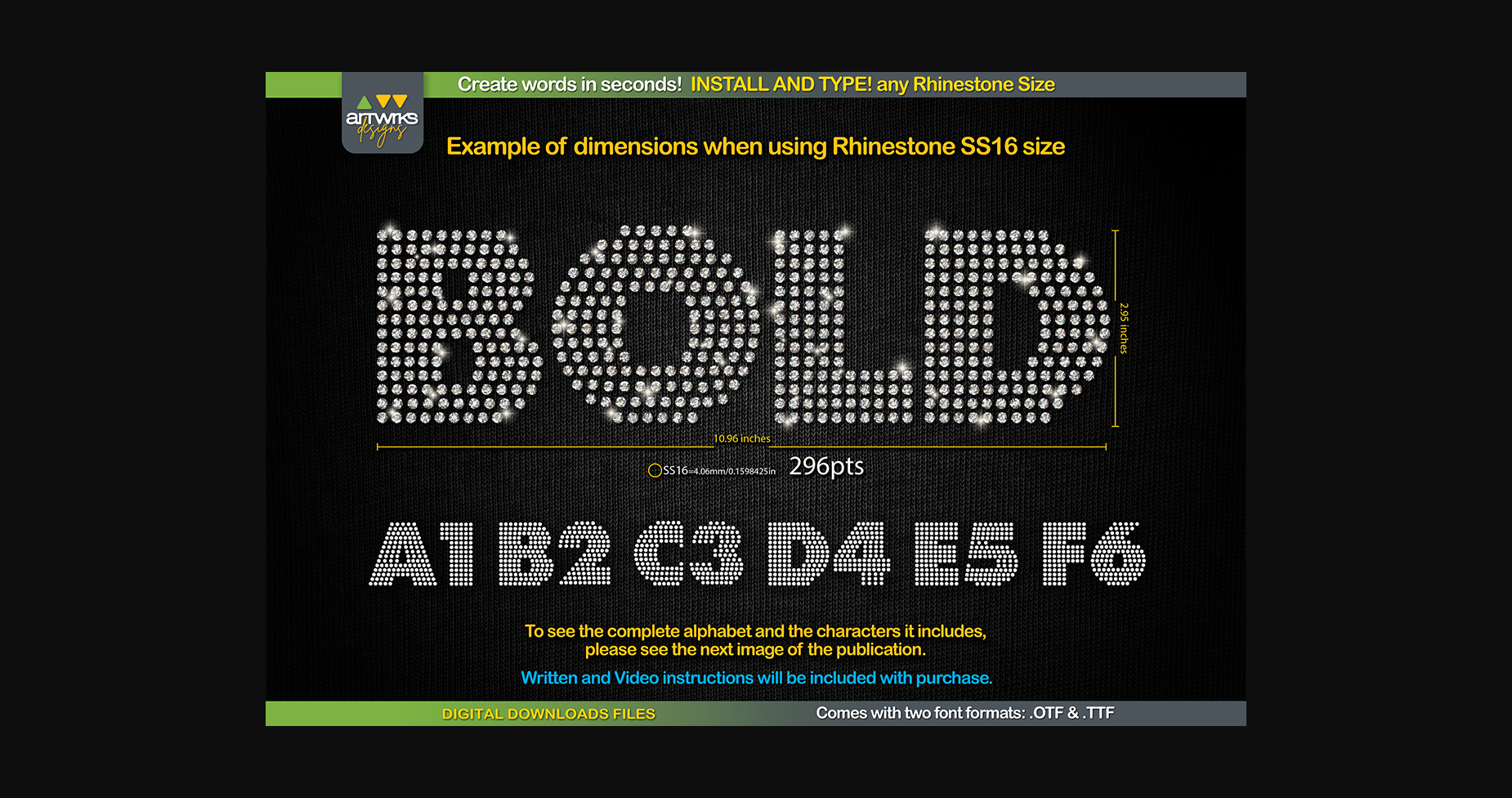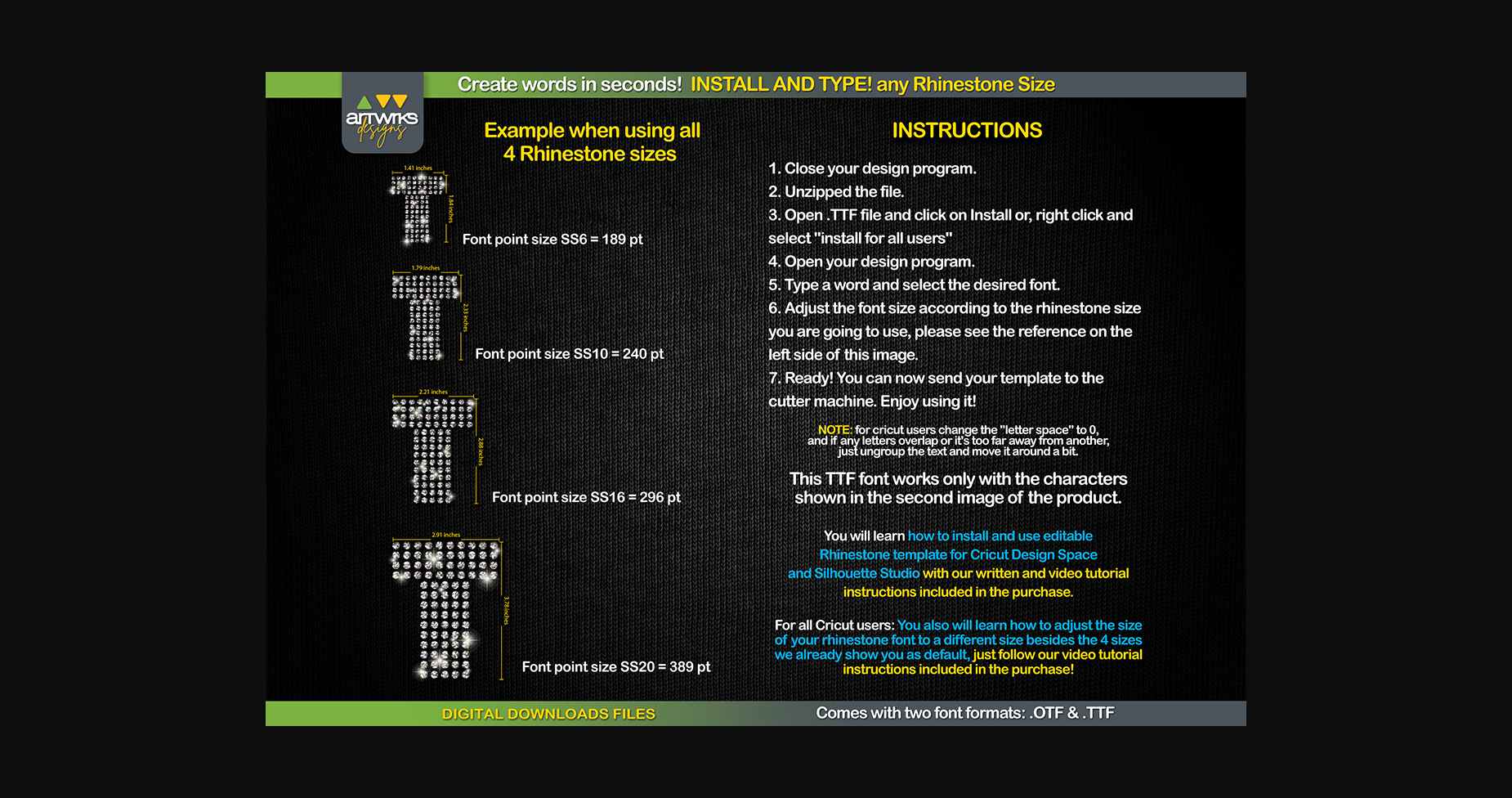
RS04 Modern DIY RHINESTONE TTF Template Font
This is a very cool Rhinestone Template TTF will let you create words in seconds! simply download, install, and type… It’s that easy! In addition, when you type, each letter is filled perfectly with rhinestones or arranged and trapped for heat transfer vinyl so you can conveniently customize your designs with text. SEE the size of each letter in the images of the publication. This DIY RHINESTONE TTF template comes in two font formats. (.OTF & .TTF). Use this to make rhinestone T-shirts, heat transfer vinyl, and more.
RHINESTONE TTF Alphabet Rhinestone – Modern font Crystal Hot Fix Typeable bling letters Ttf – Fonts for Cricut and Silhouette Cameo by ArtWorks Designs – D197